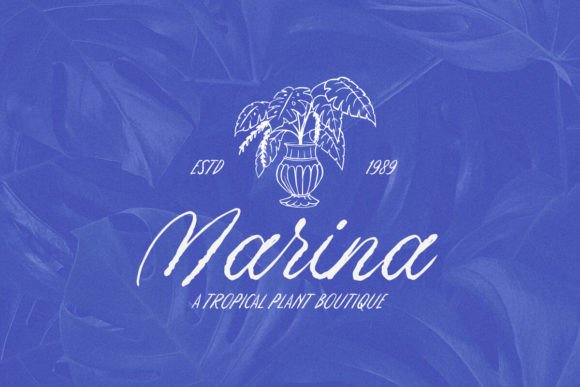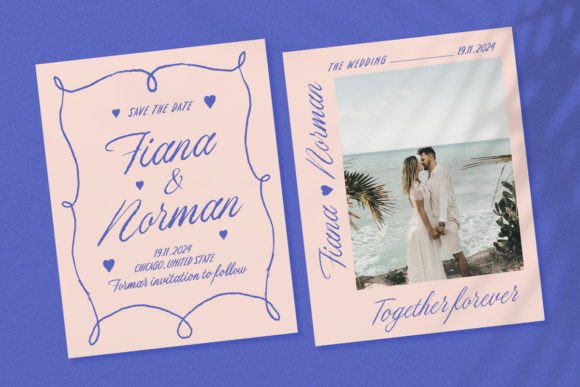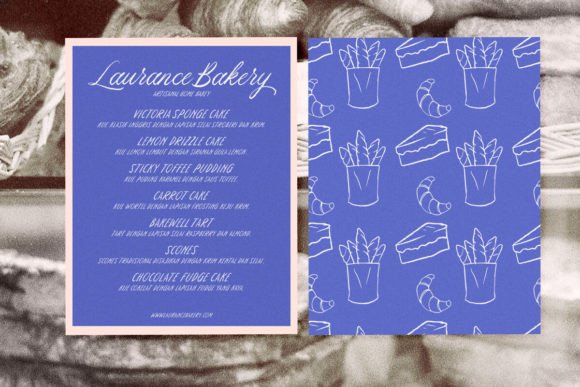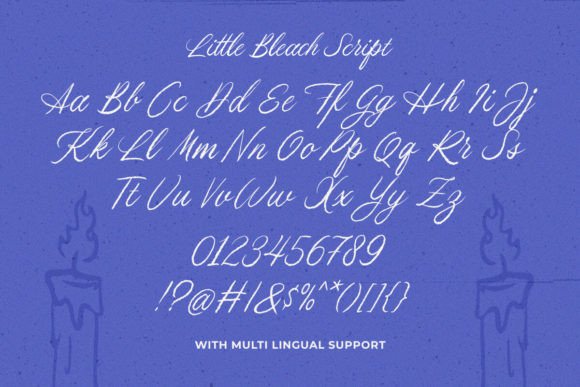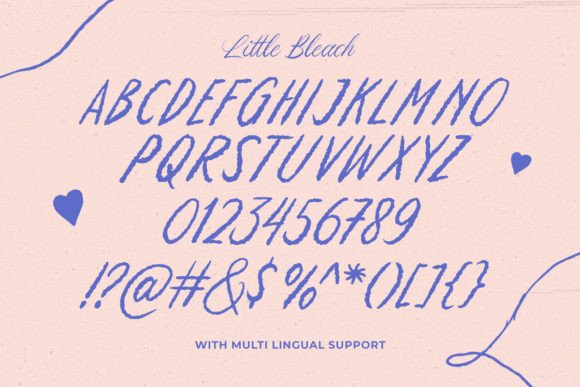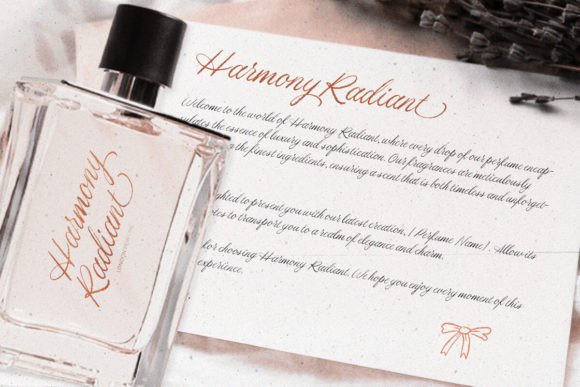
Introduction to Little Bleach Font Font
Fonts play a crucial role in design, and the Little Bleach Font font is a typeface that brings both character and versatility to any project. Whether you’re working on a branding project, a website, or a print design, the Little Bleach Font font offers a unique style that can elevate your work.
Meet Little Bleach, a crafted font duo that combines two styles: an textured script and a organic san handwriting.
These fonts work beautifully together, making them ideal for a range of uses like logos, invitations, labels, magazines, books, and greeting cards Theyβre also great for packaging, fashion, makeup, stationery, and all kinds of advertising.
Key Features of Little Bleach Font Font
Why Choose Little Bleach Font Font?
The Little Bleach Font font is more than just a typeface β it’s a design tool that helps you communicate your message with style and clarity. Its unique character set and versatile design make it suitable for a wide range of applications, from elegant invitations to bold headlines.
With its carefully crafted letterforms and balanced proportions, the Little Bleach Font font ensures readability and visual appeal across all mediums.
What makes Little Bleach Font font special?
The Little Bleach Font font stands out with its unique design, exceptional readability, and versatility across various design applications.